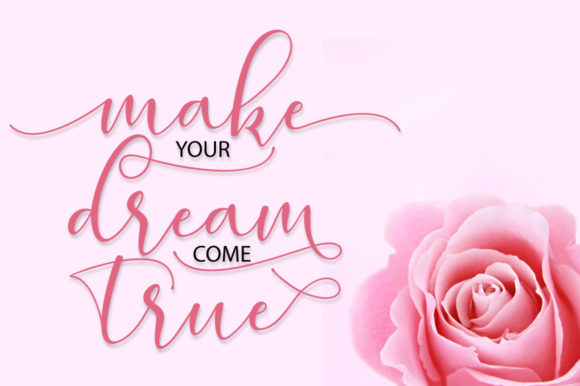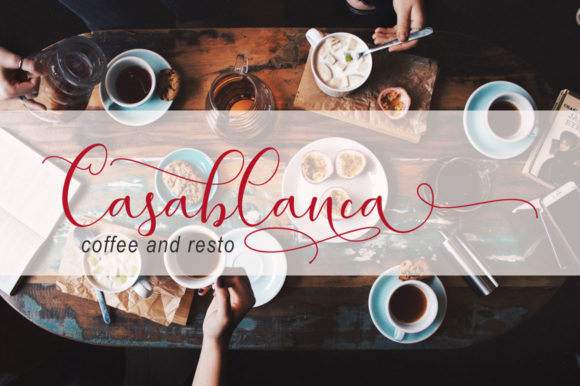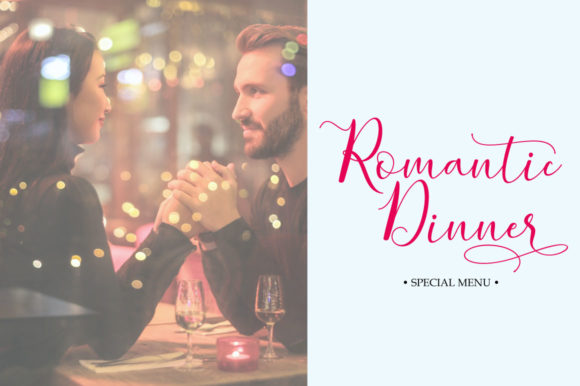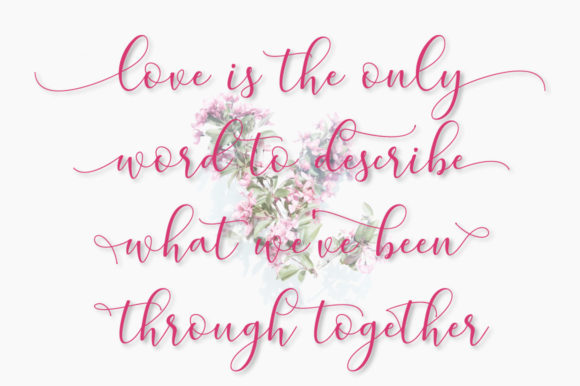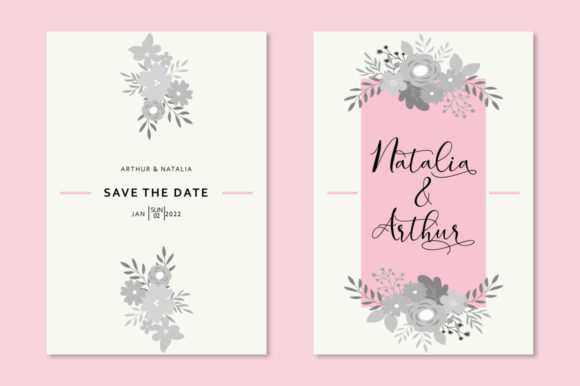
Zellora Font
About Zellora Font
Zellora is a modern and sweet, soft hand-lettered handwritten font. This font is PUA encoded which means you can access all of the amazing glyphs and swashes with ease!